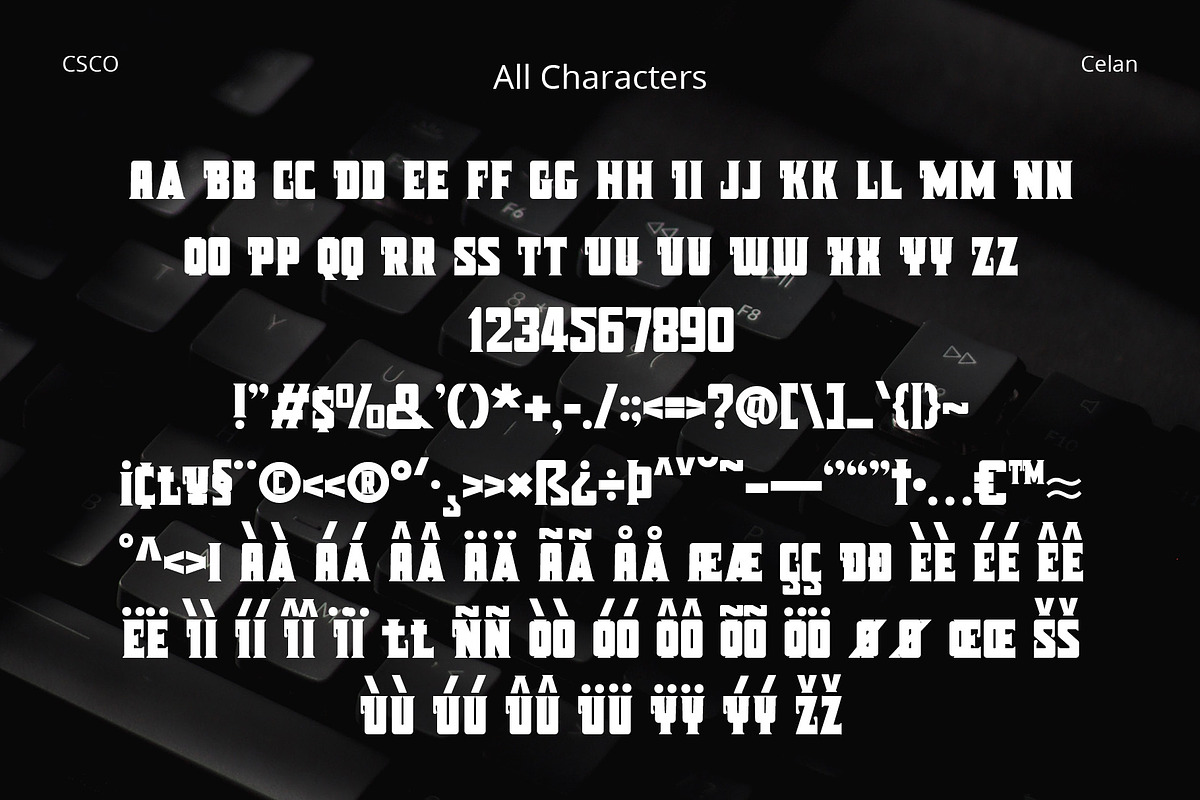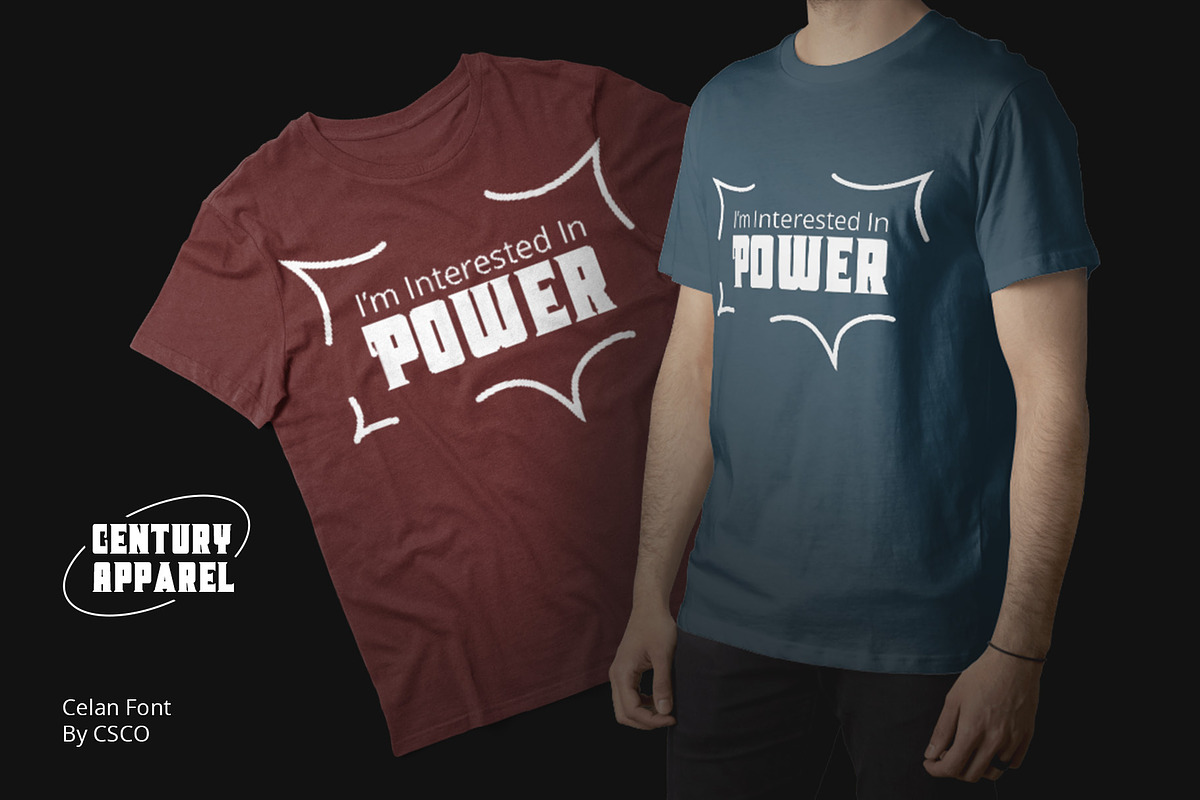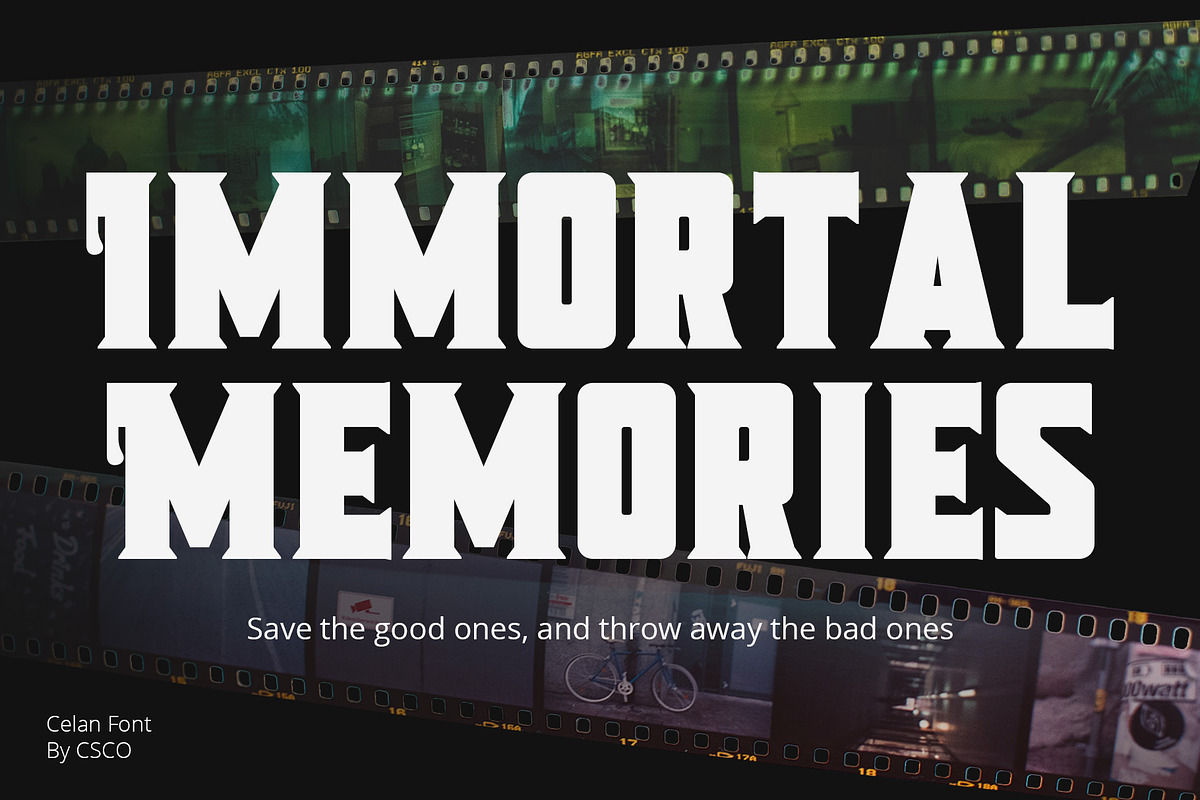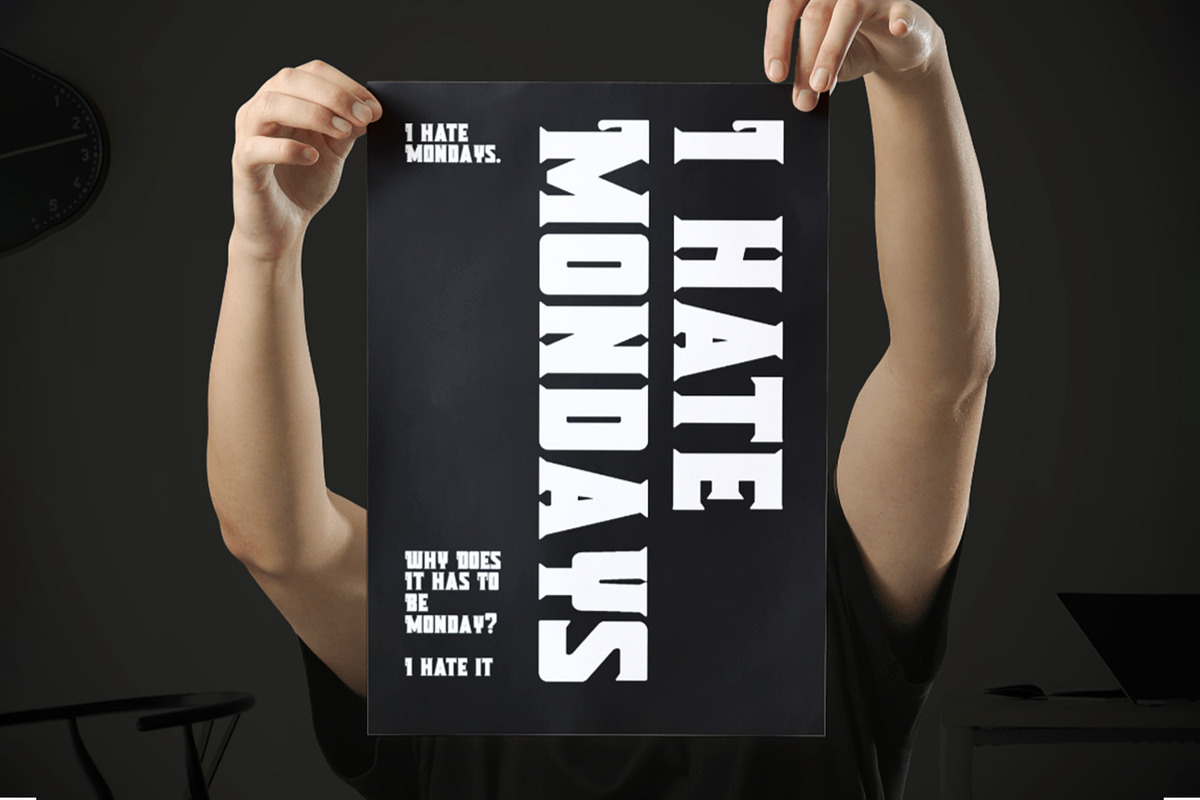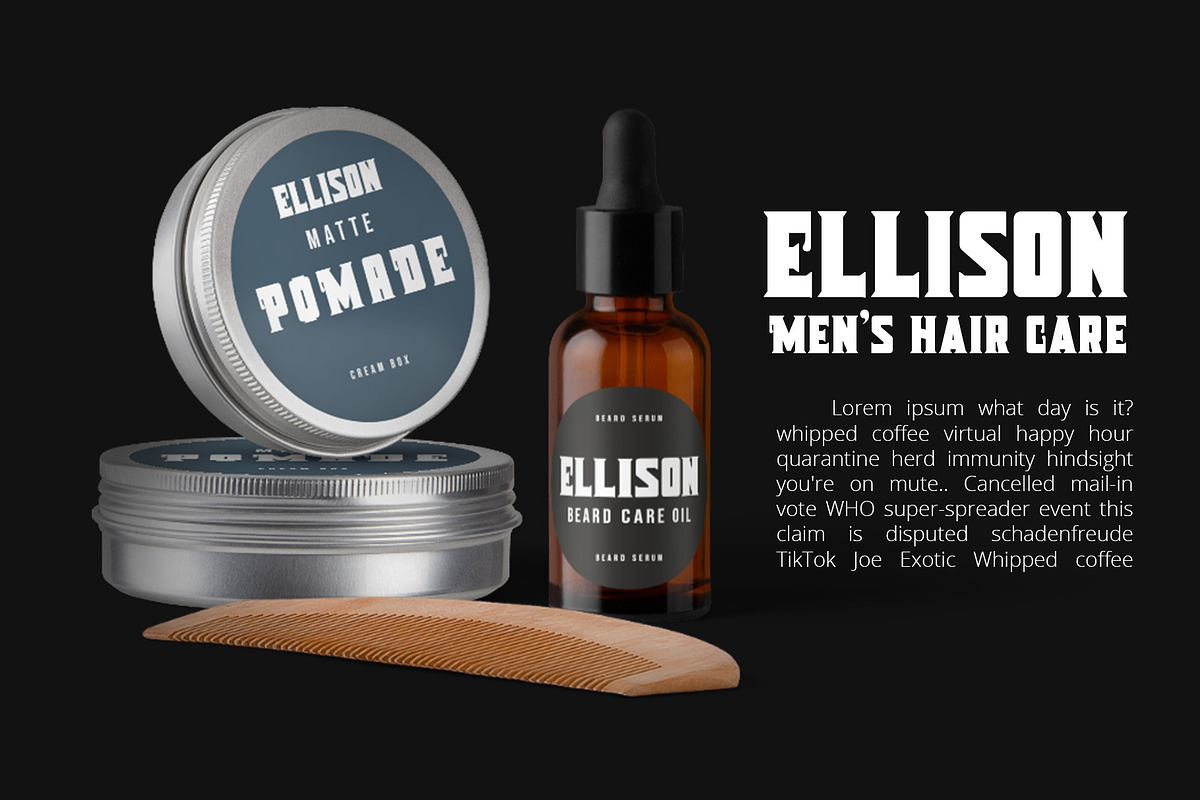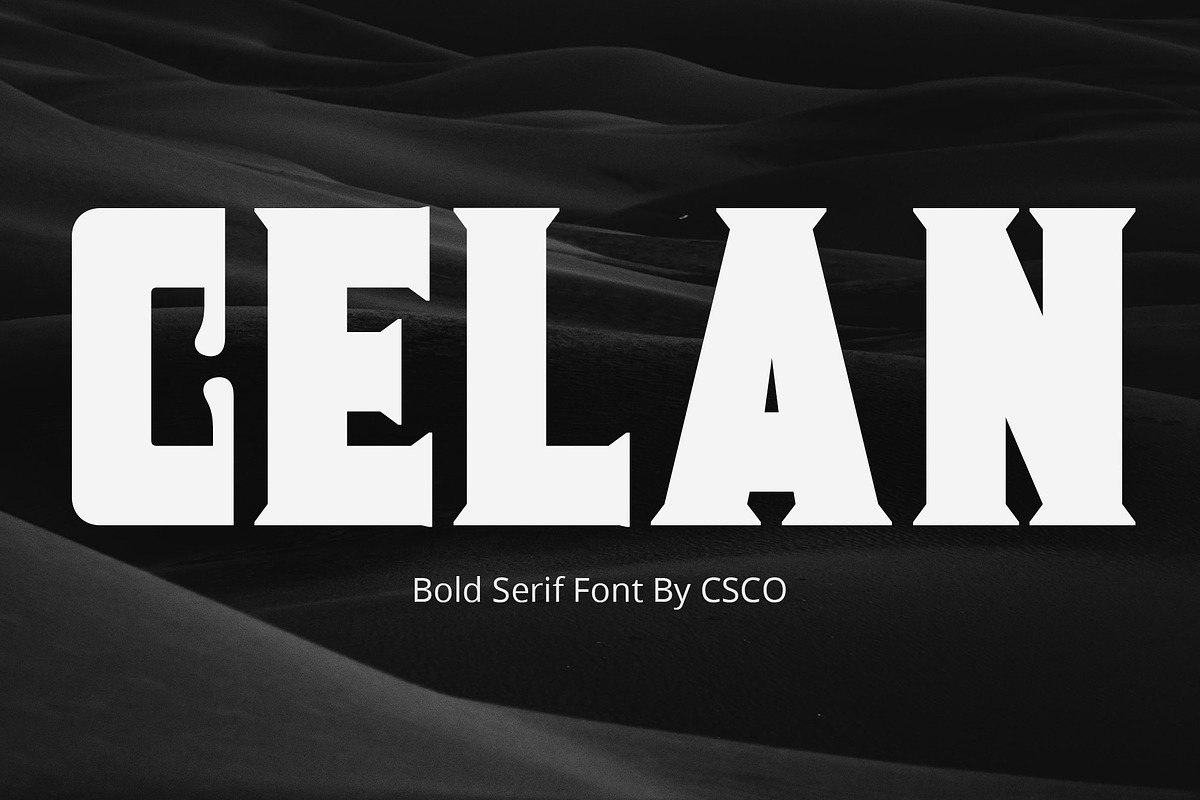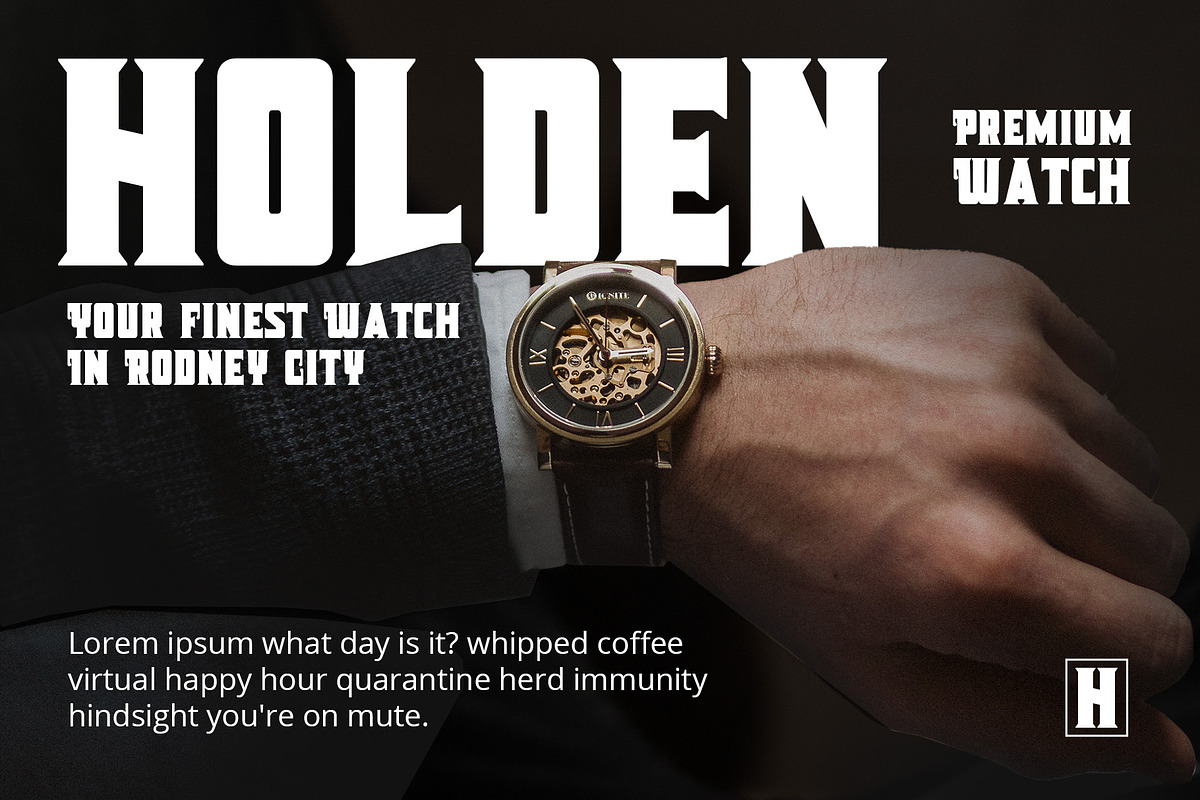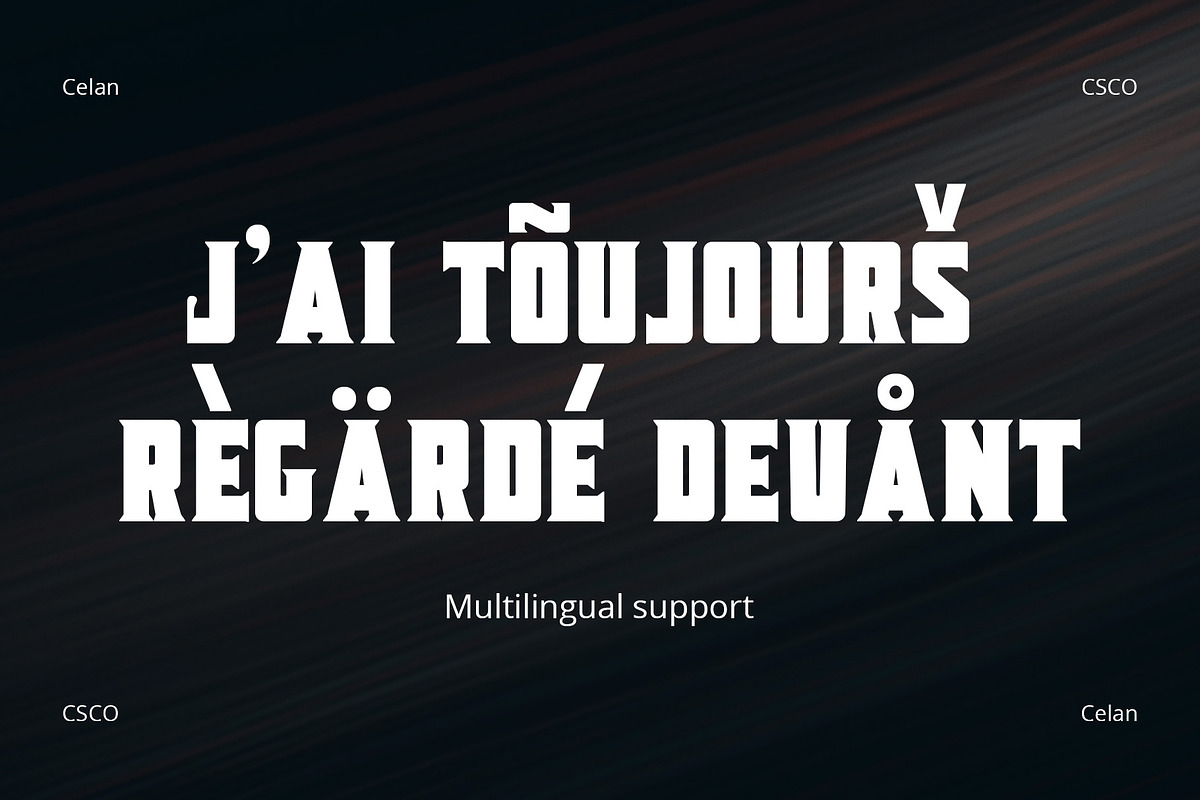
Celan – Bold Serif
Introduction to Celan Bold Serif Font The Celan – Bold Serif font stands out with its robust and masculine appearance. It features thick, strong lines and minimal white space. This design choice gives it a dominant presence, making it ideal for impactful titles.
Characteristics of the Font Celan is characterized by its bold, assertive strokes. The limited white space between letters enhances its solidity. This quality makes the font appear more masculine and forceful. Its serif design adds a touch of classic elegance.
Ideal Uses of Celan – Bold Serif This font is perfect for powerful titles that need to command attention. Its boldness makes it suitable for headers in various mediums like posters, websites, and magazines. The strong character of the font conveys confidence and authority.